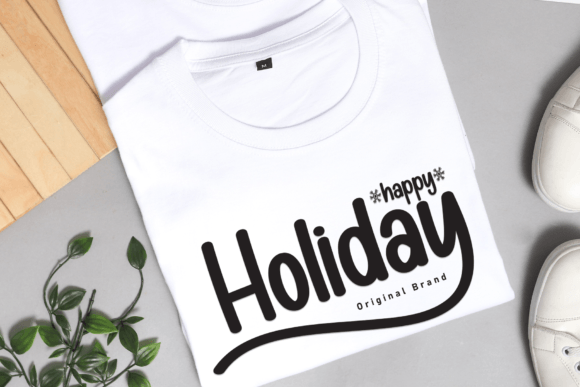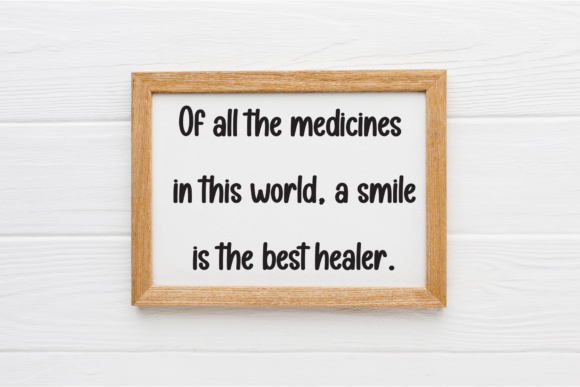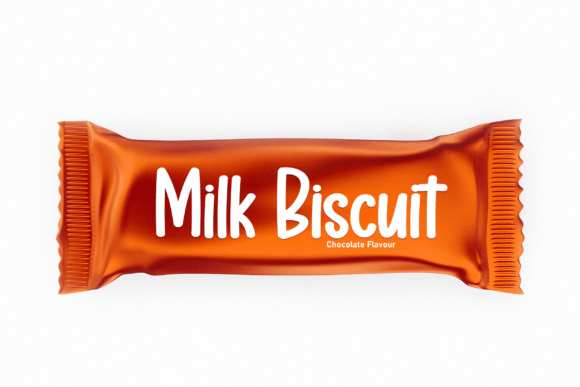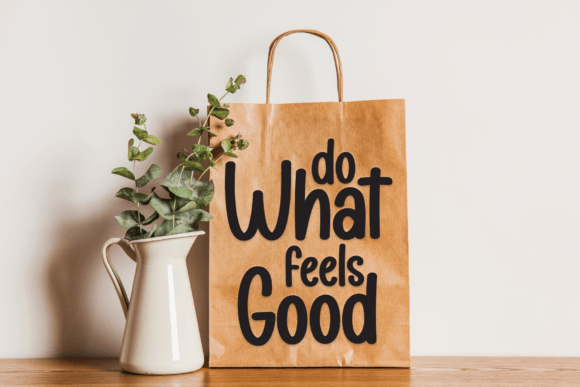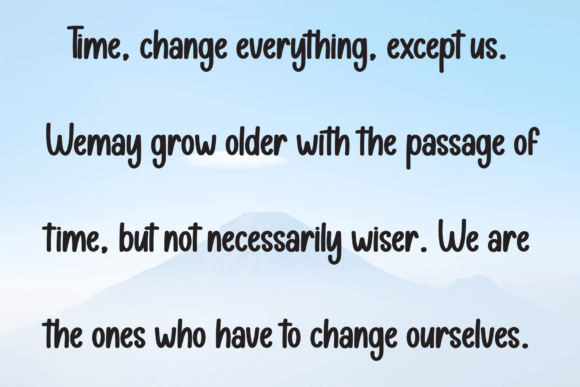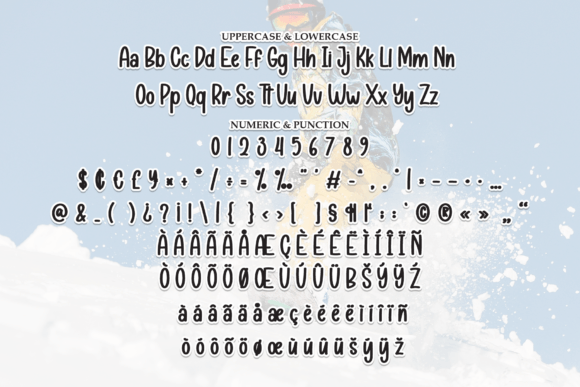
Introduction to Snow Boarding Font
Snow Boarding is a whimsical handwritten font that adds a touch of charm to your text.
With playful strokes and a hint of winter magic, each character is crafted with care The font comes adorned with a delicate snowflake, turning your words into a frosty masterpiece.